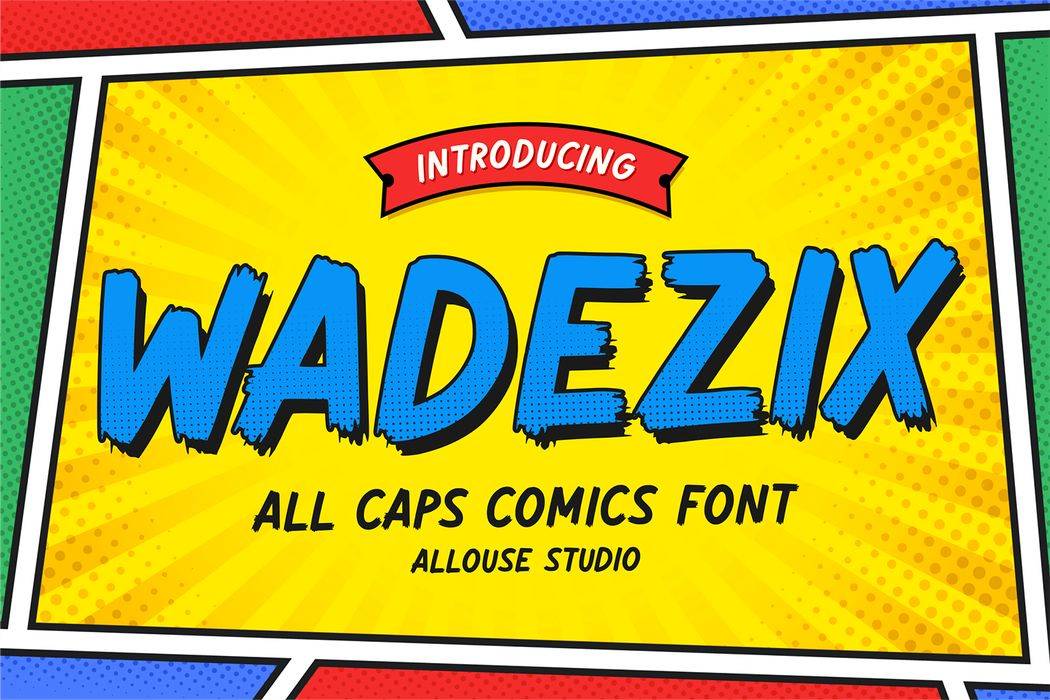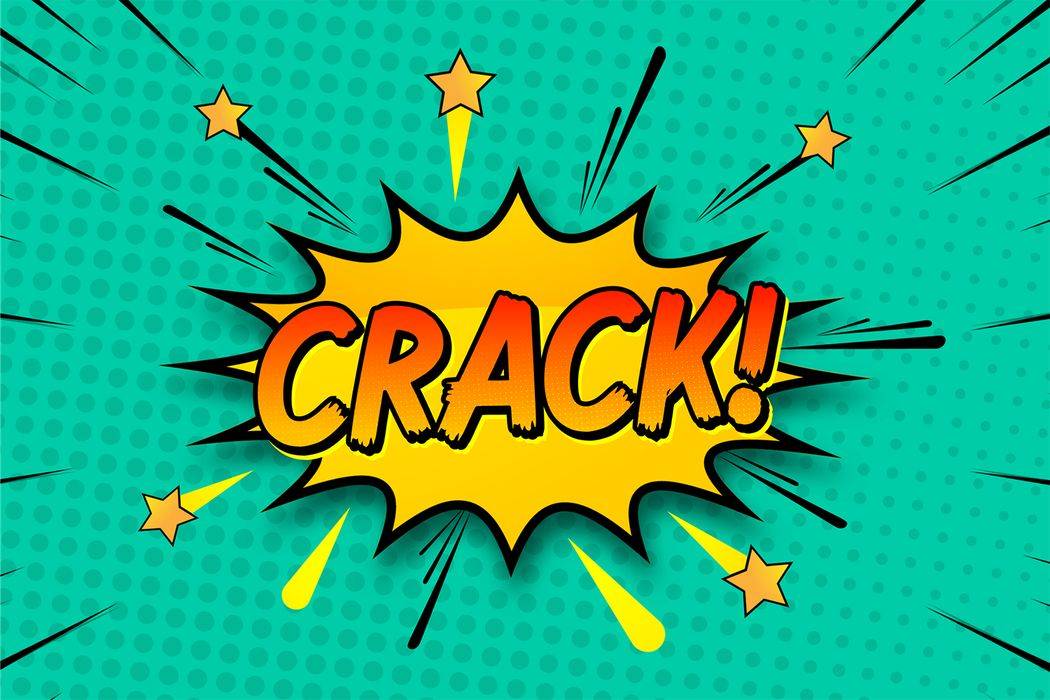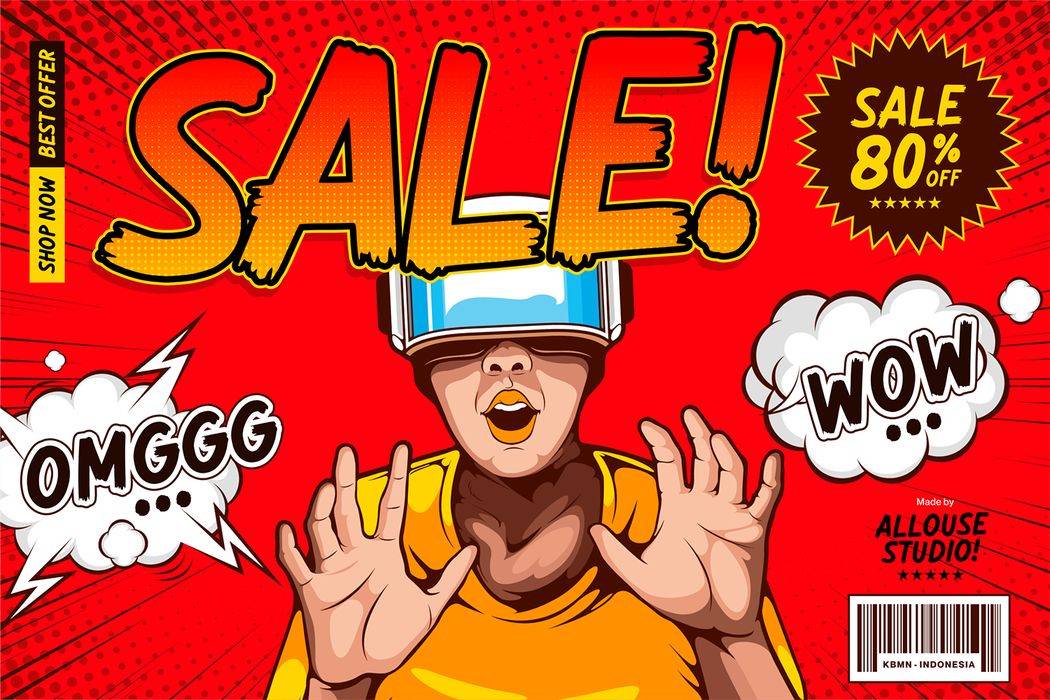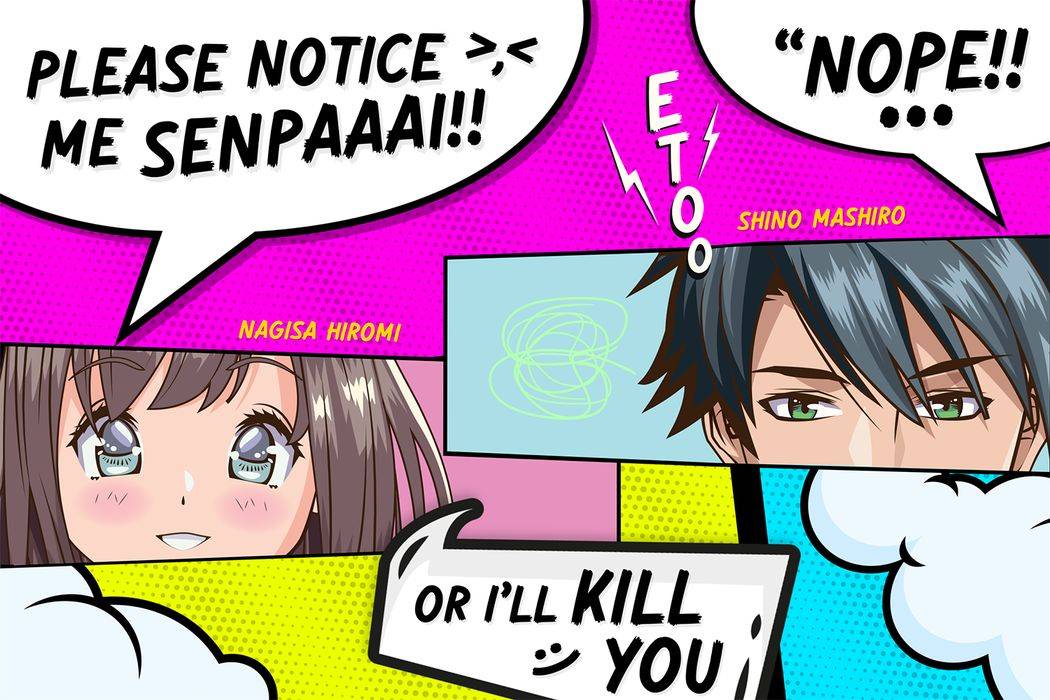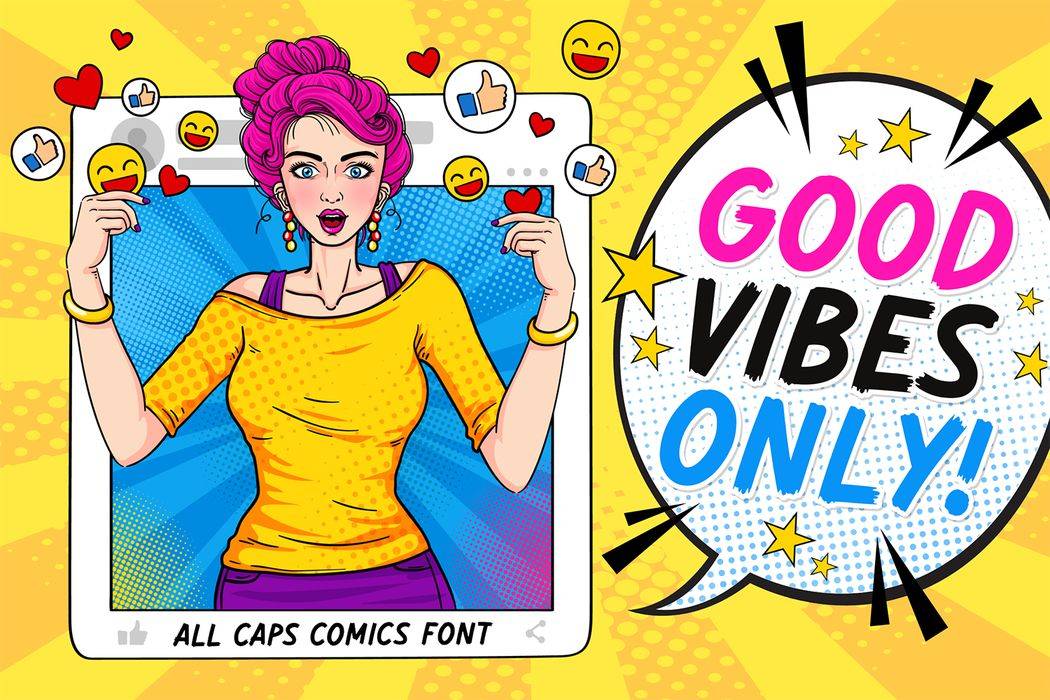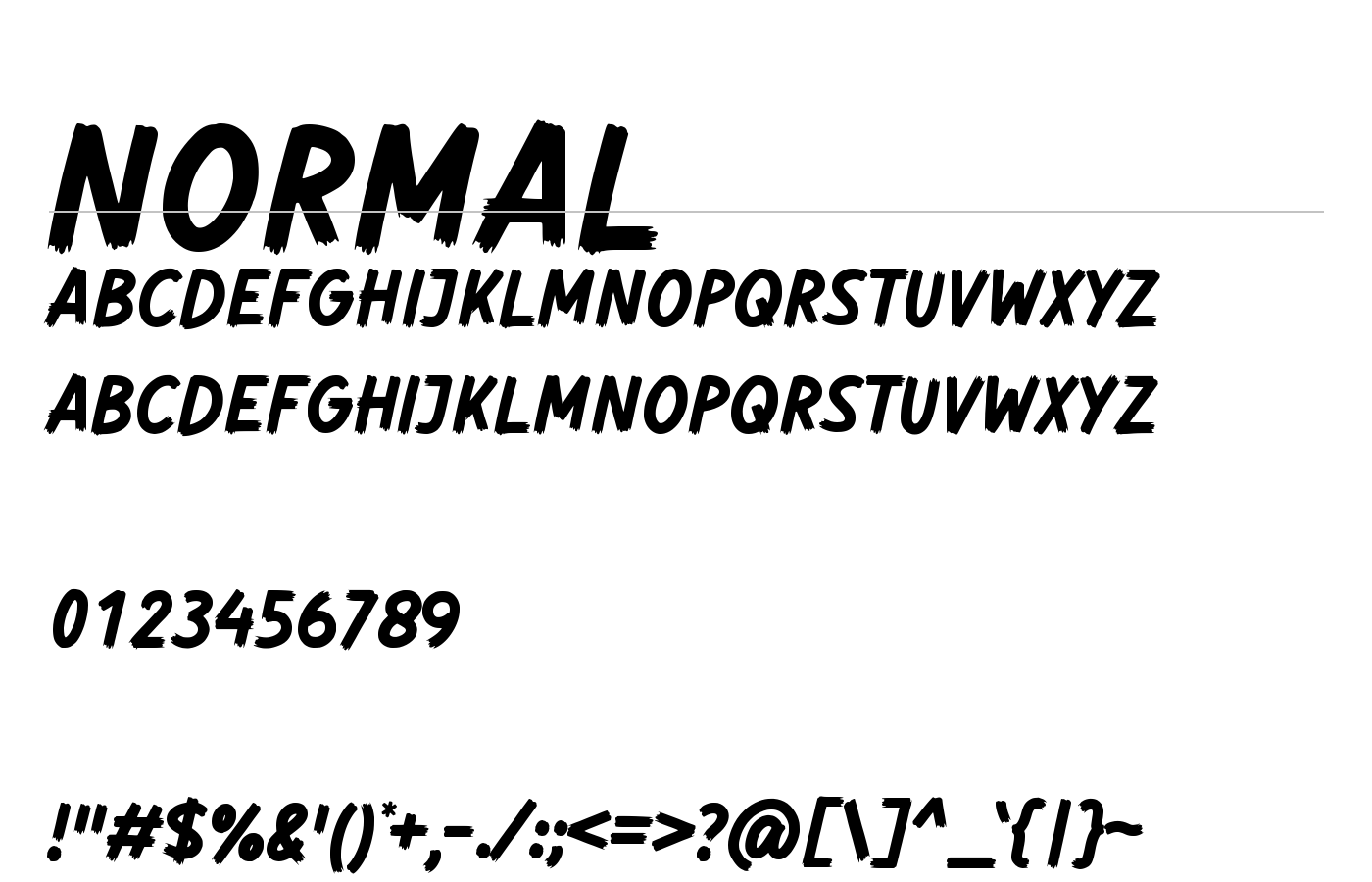
Wadezix is a bold and energetic sans serif font with a hand-painted brush style that gives it a lively, dynamic feel. Its slightly condensed letterforms and irregular stroke endings create a sense of movement and informality, making it ideal for eye-catching headlines, posters, and creative branding where a fresh, playful vibe is desired. This font works well in projects that want to convey creativity, spontaneity, and a modern artistic touch.
Wadezix Font
About Wadezix Font